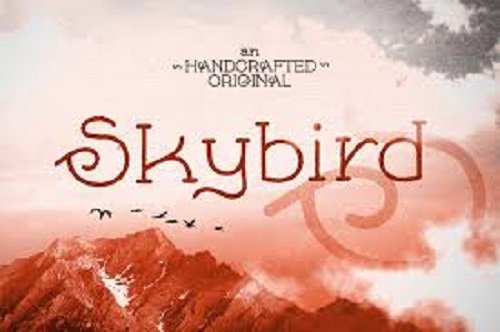
Skybird Font
Skybird is a new cool and crazy serif font which can be used for vintage/retro designs or clean modern typography. You can get the full version including a standard license and a rough style for just 9,99$ on my website here